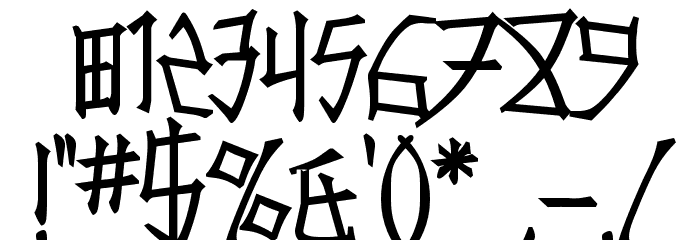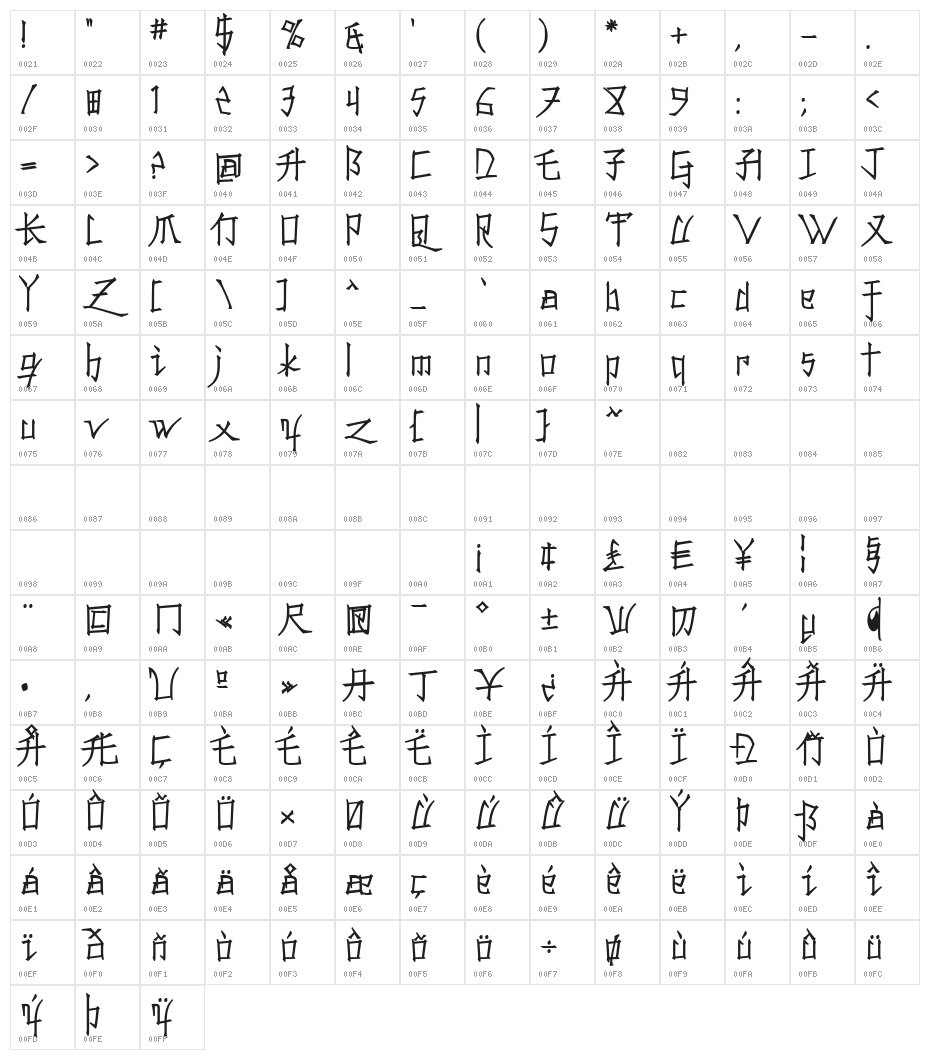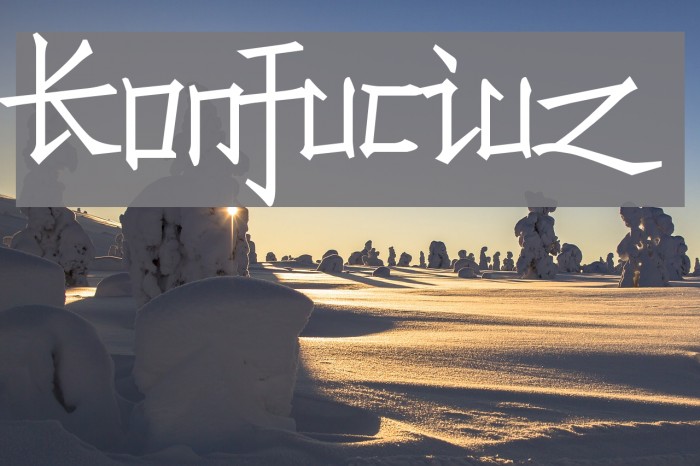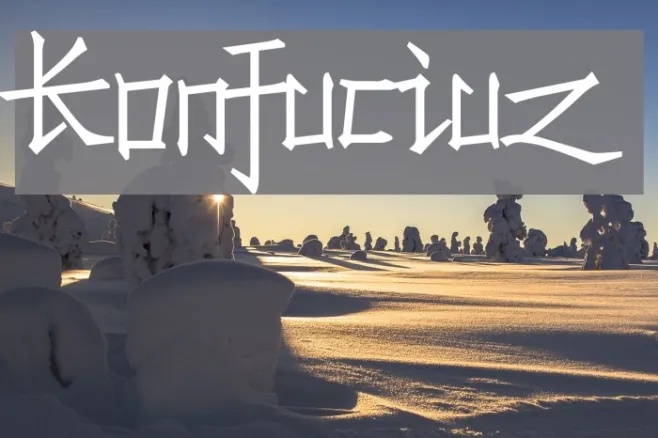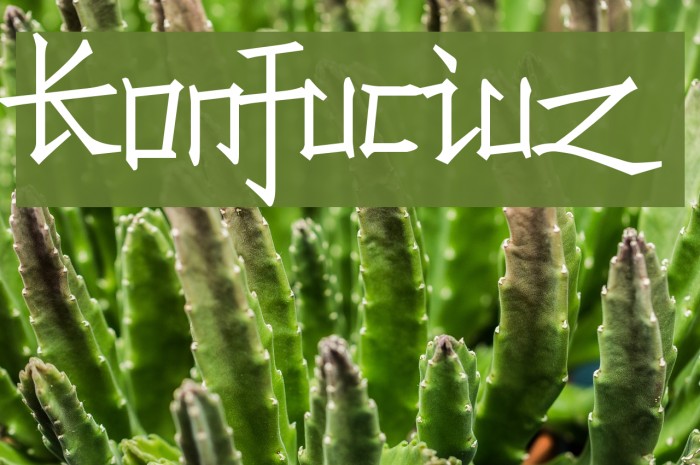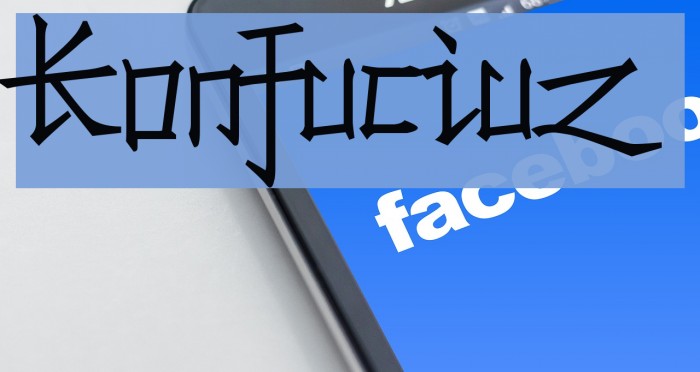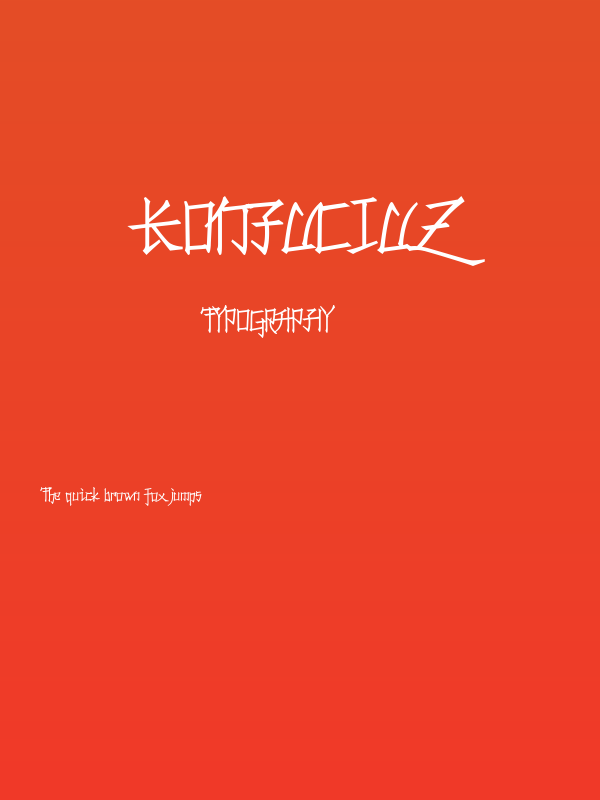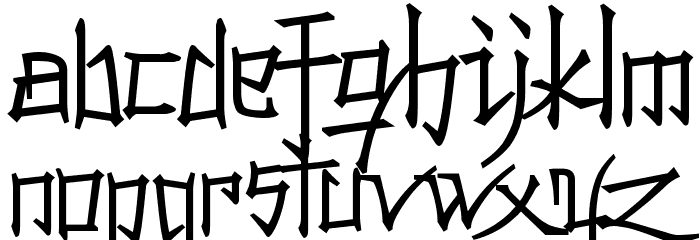
Konfuciuz Font
Konfuciuz Description
This font features a unique, angular design with sharp edges and a geometric structure. The uppercase letters are bold and striking, with a consistent height and width that create a cohesive look. The lowercase letters maintain the angular theme, offering a modern twist on traditional letterforms. Numbers and special characters are designed to match the overall aesthetic, providing a seamless integration across all elements. The font's distinctive style makes it suitable for creative and bold design projects, where a strong visual impact is desired.
| Proposed Projects | Ideal for branding, posters, album covers, and any project requiring a bold, modern aesthetic. |